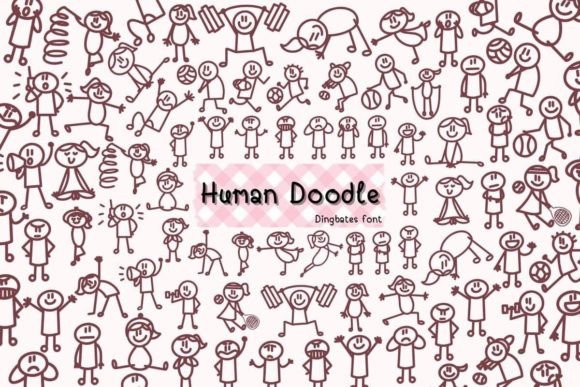
Introducing Human Doodle Font: Adding a Playful Touch to Your Designs
In the world of typography and font design, there’s always room for something new and exciting. If you’re looking for a way to add a playful and dynamic element to your designs, look no further than the Human Doodle Font. This charming dingbat font features doodles of humans engaged in various sports activities, bringing a fun and sporty flair to any project.
What is Human Doodle Font?
Human Doodle is a unique and creative font that showcases illustrations of humans participating in different sports and activities. From running and dancing to yoga and more, this font is packed with charming doodles that are sure to bring a smile to your audience’s faces. The font is designed to be versatile and can be used in a variety of contexts, from posters and invitations to social media graphics and more.
Key Features of Human Doodle Font
- Playful and dynamic illustrations: The Human Doodle Font features a range of colorful and engaging illustrations of humans engaged in various sports activities.
- Dingbat font style: The font is designed as a dingbat font, making it easy to use and incorporate into your designs.
- Variety of sports activities: The font includes illustrations of humans participating in a range of sports activities, including running, dancing, yoga, and more.
- Perfect for sporty designs: Whether you’re creating a poster for a sports event or a social media graphic for a fitness brand, the Human Doodle Font is the perfect choice.
Uses of Human Doodle Font
The Human Doodle Font is incredibly versatile and can be used in a variety of contexts. Here are some ideas to get you started:
- Posters and flyers: Use the Human Doodle Font to create eye-catching posters and flyers for sports events, fitness classes, or wellness programs.
- Invitations and greeting cards: Add a playful touch to your invitations and greeting cards with the Human Doodle Font.
- Social media graphics: Use the font to create engaging social media graphics for sports brands, fitness influencers, or wellness programs.
- Web design: Incorporate the Human Doodle Font into your web design to add a fun and dynamic element to your website.
Benefits of Using Human Doodle Font
There are many benefits to using the Human Doodle Font in your designs. Here are a few:
- Adds a playful touch: The Human Doodle Font adds a playful and dynamic element to your designs, making them more engaging and attention-grabbing.
- Perfect for sporty designs: The font is specifically designed for sporty designs, making it the perfect choice for projects that require a sporty flair.
- Increases brand recognition: Using a unique and creative font like the Human Doodle Font can help increase brand recognition and make your designs more memorable.
- Easy to use: The font is easy to use and incorporate into your designs, making it a great choice for designers of all levels.
Tips and Tricks for Using Human Doodle Font
Here are some tips and tricks for using the Human Doodle Font:
- Experiment with different colors: Experiment with different colors and color combinations to add depth and interest to your designs.
- Use it sparingly: Use the Human Doodle Font sparingly to add a touch of whimsy to your designs.
- Combine with other fonts: Combine the Human Doodle Font with other fonts to create a unique and visually appealing design.
- Pay attention to legibility: Pay attention to legibility when using the Human Doodle Font, especially in smaller sizes.
The Human Doodle Font is a unique and creative font that adds a playful and dynamic element to any design. With its charming illustrations of humans engaged in various sports activities, this font is perfect for adding a sporty flair to your designs. Whether you’re creating a poster, invitation, or social media graphic, the Human Doodle Font is sure to bring a smile to your audience’s faces.
- What is the Human Doodle Font?: The Human Doodle Font is a playful dingbat font featuring doodles of humans engaged in various sports activities.